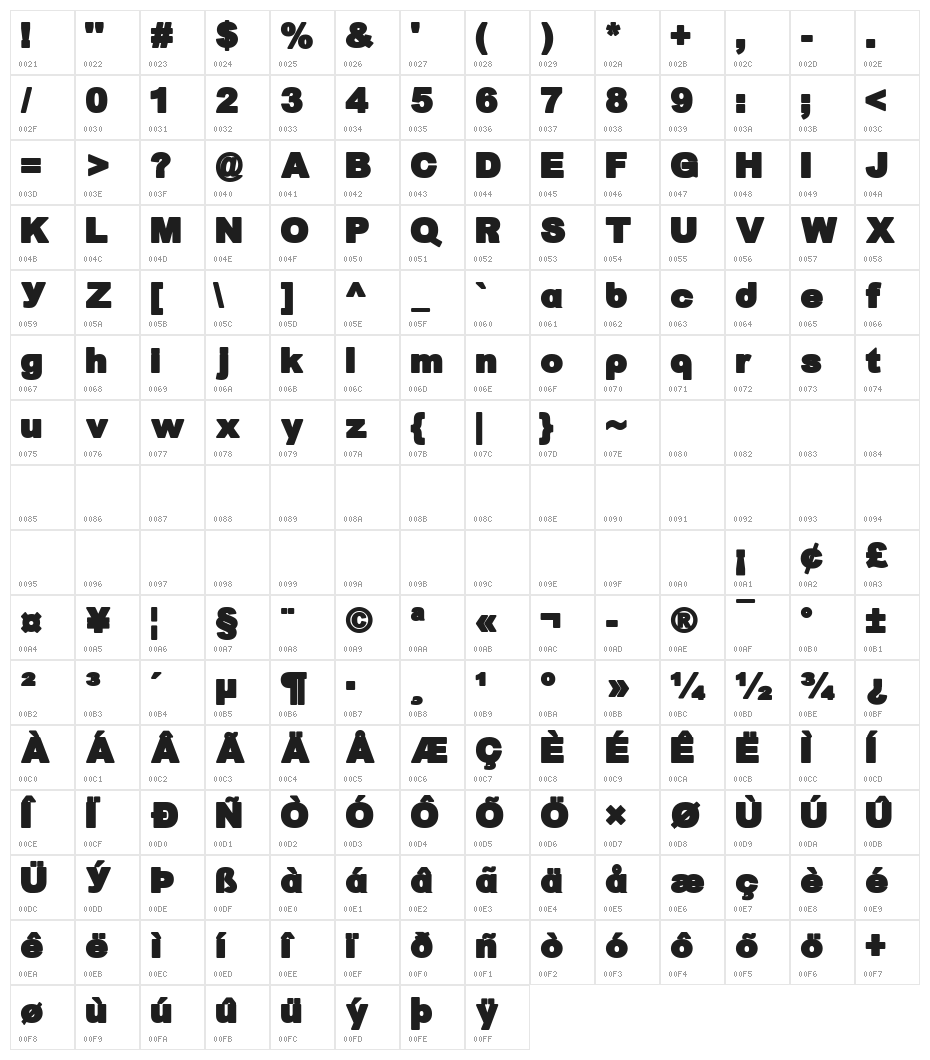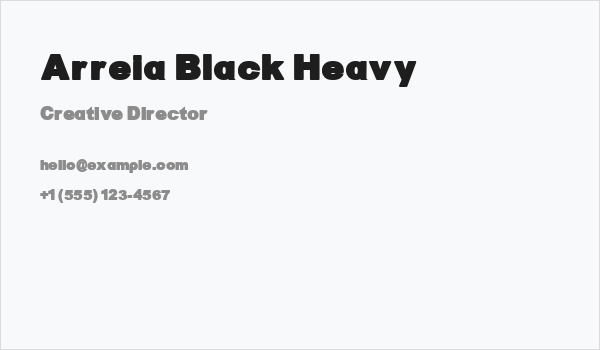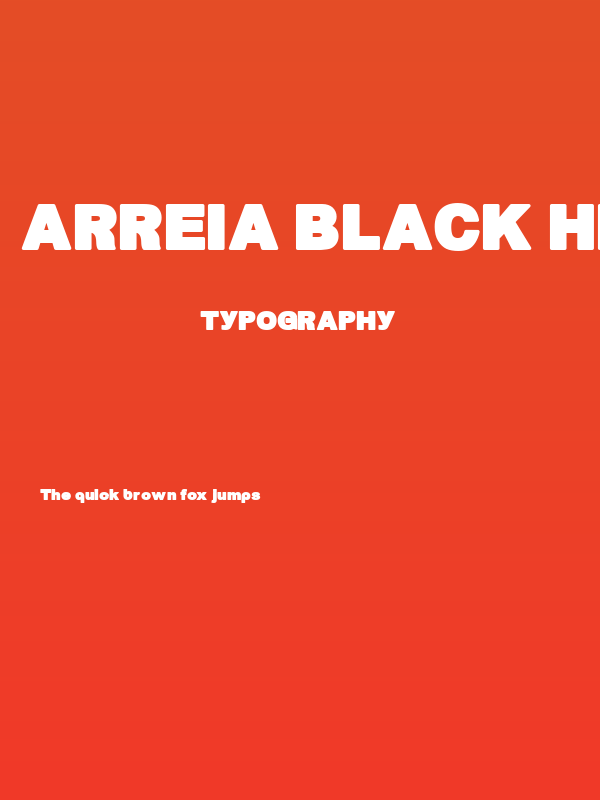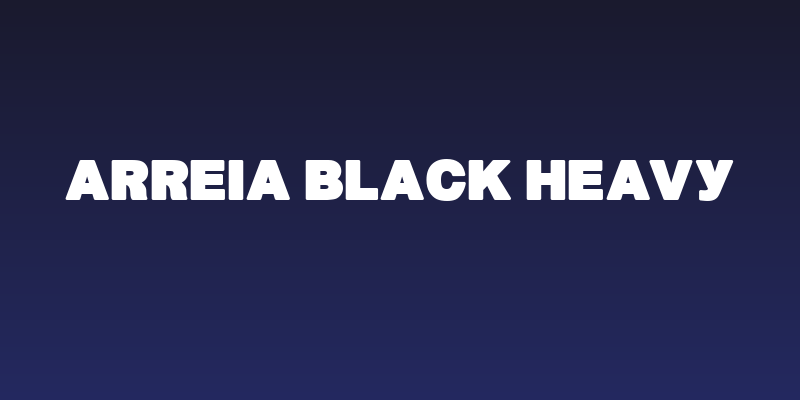
Arreia Black Heavy Font
Arreia Black Heavy Description
This font is characterized by its bold and heavy appearance, making it highly impactful and attention-grabbing. The letters are thick and robust, with a uniform stroke width that conveys strength and stability. The uppercase and lowercase letters maintain a consistent style, with rounded edges that soften the overall look. The numbers and special characters follow the same bold design, ensuring a cohesive appearance across all elements. This font is ideal for projects that require a strong visual presence and can effectively convey messages with authority and clarity.
| Proposed Projects | Ideal for headlines, posters, branding, and any design requiring a commanding presence. |